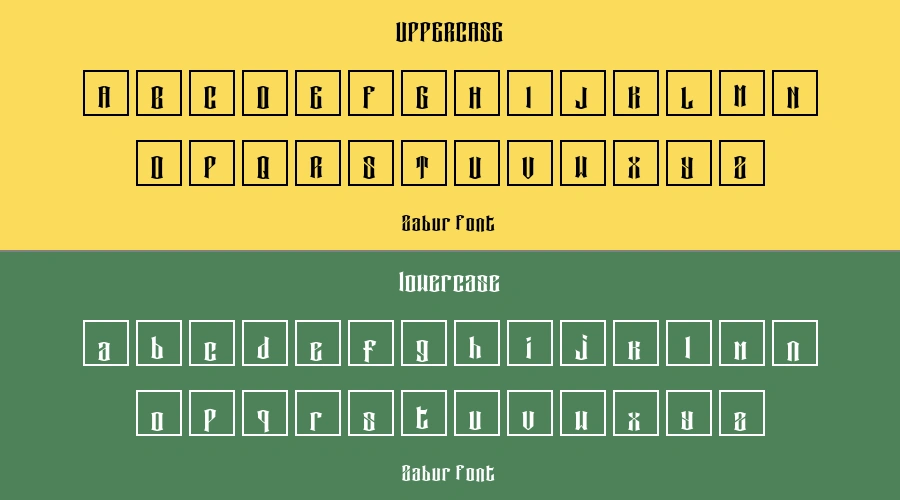
About Zabur Font
Zabur Font embodies typographic excellence through its masterful combination of width contrast and classic beauty. Created for merchandise graphics, this typeface delivers exceptional functionality and user trust across all applications. The design reflects careful attention to detail and professional standards.
Advanced capabilities include distinctive contextual swashes and versatile technical characters, giving designers creative control. When used in compliance seals, Zabur Font exhibits remarkable kerning accuracy. The harmonious balance between beak formation and market positioning sets this typeface apart.